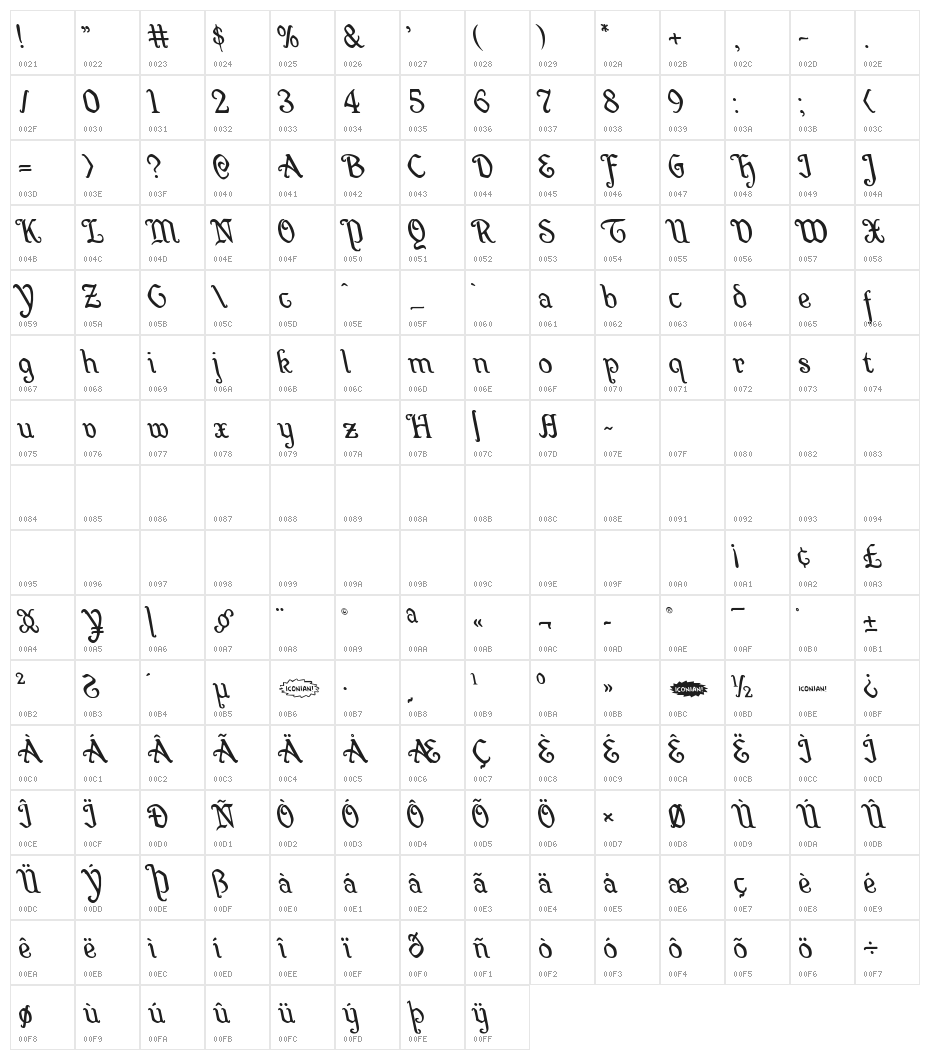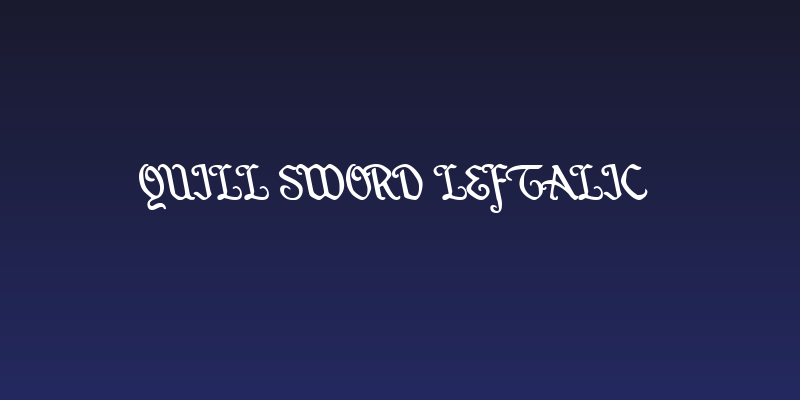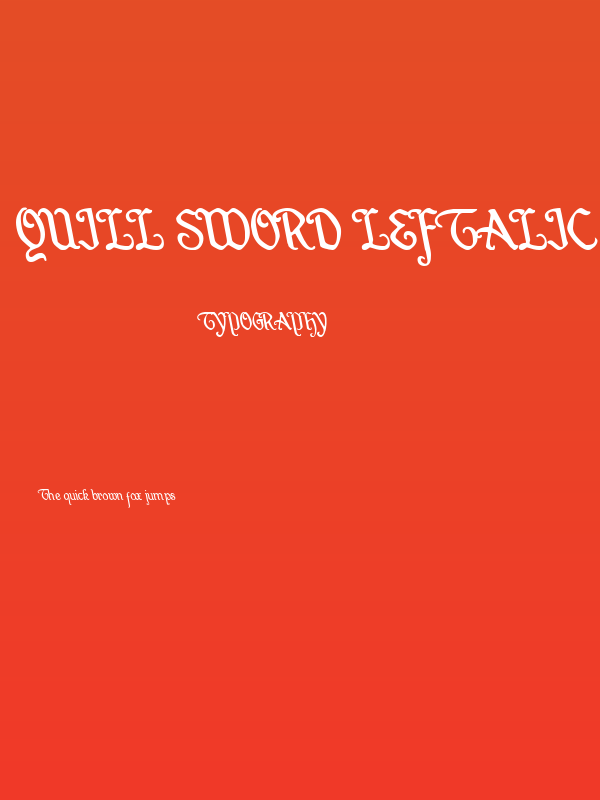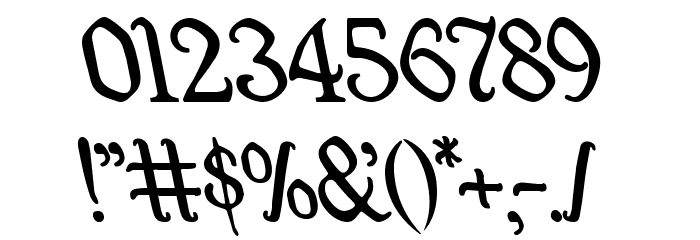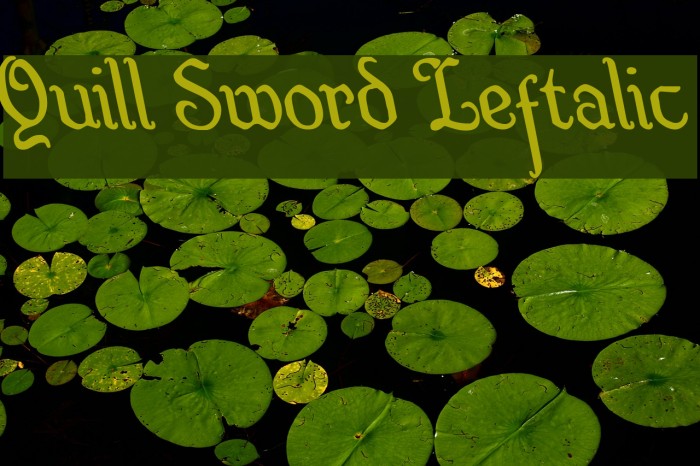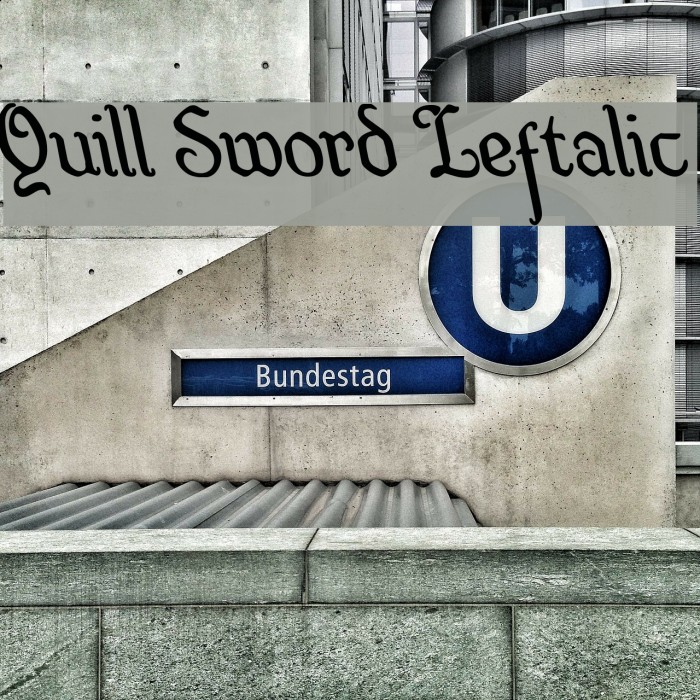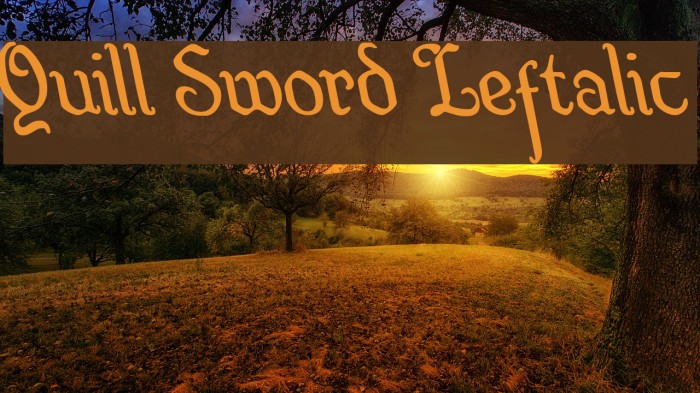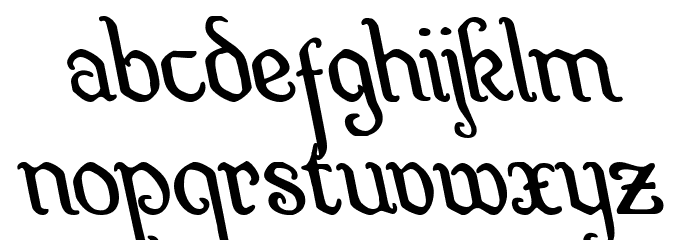
Quill Sword Leftalic Font
Quill Sword Leftalic Description
This font features a distinctive calligraphic style with elegant, flowing lines and a slight slant to the left, giving it a dynamic and artistic appearance. The uppercase letters are bold and ornate, with intricate curves and flourishes that add a touch of sophistication. The lowercase letters maintain a consistent style, with smooth, rounded edges and a harmonious balance between thick and thin strokes. Numbers and special characters are designed to complement the overall aesthetic, ensuring a cohesive look across all text. This font is ideal for projects that require a touch of elegance and creativity.
| Use Case | Logos, Invitations, Artistic Projects |
| Proposed Projects | Ideal for wedding invitations, greeting cards, artistic posters, and branding materials that require a touch of elegance. |